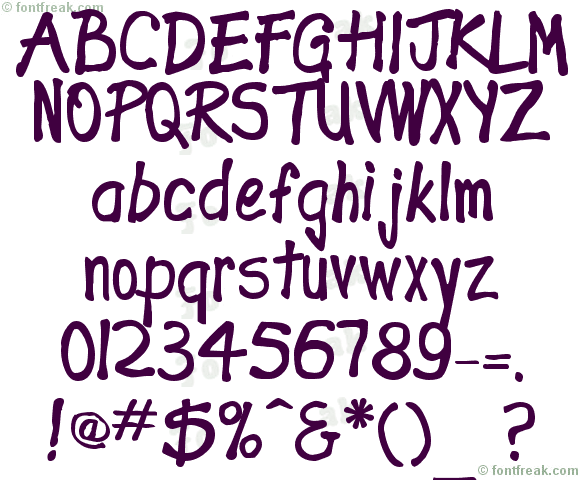
Expletive Deleted
About Expletive Deleted
Expletive Deleted is a distinctive display font designed by Greywolf Webworks, making its debut in 1999. This font falls into the decorative category, characterized by its playful and informal style. The strokes are uneven and have a hand-drawn quality, giving it a lively and dynamic appearance. With a medium stroke weight and minimal contrast, Expletive Deleted conveys a sense of spontaneity, making it perfect for projects that require a touch of humor or informality. The spacing between letters is relaxed, enhancing its casual vibe and making it easy to read for a variety of applications.
This font is particularly well-suited for use cases such as greeting cards, social media graphics, and playful event flyers. Its unique character makes it ideal for branding that seeks to convey a fun and approachable image, such as cafes, bars, or entertainment venues. Additionally, Expletive Deleted can be effectively used in comic strips or graphic novels, where its expressive style can add personality to characters and dialogues. Small business owners and content creators will find this font a valuable asset for crafting engaging materials that stand out.
The target audience for Expletive Deleted includes graphic designers looking for a unique typeface to add flair to their designs, as well as small business owners seeking to establish a memorable brand identity. Content creators can benefit from this font in various digital and print projects, ensuring their work captures attention.
What sets the Expletive Deleted font apart is its ability to infuse a sense of humor and personality into any design. Its free download option makes it accessible for all types of creators, allowing them to experiment with its whimsical style without financial constraints. This versatility and charm make Expletive Deleted a standout choice in the world of typography.